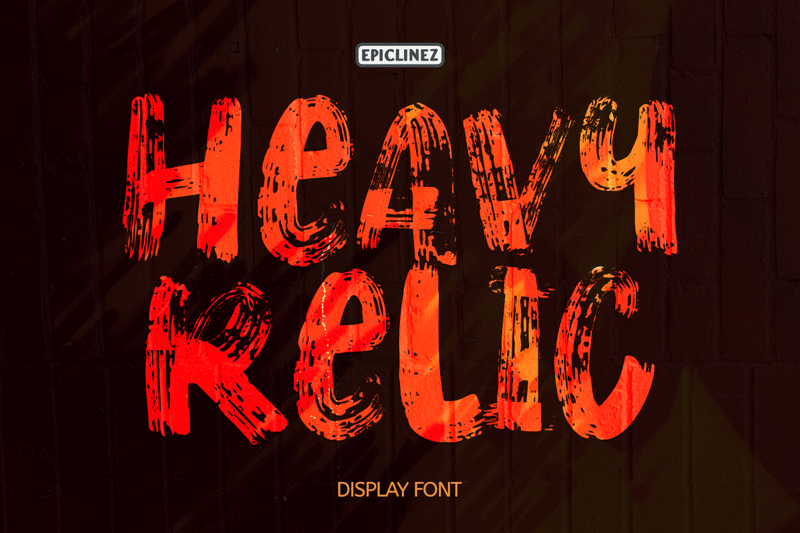
Font name: | Heavy Relic |
Author: | epiclinez |
Note by epiclinez | |
Heavy Relic is a heavy textured display font. It was inspired by the spirit of the most time tested, road-worn, and battle-hardened workhorse vintage Fender guitars in history. This font work greats for posters, movie titles, headlines, and apparel. NOTE : This demo font is 100% free for personal use. If you want to Donate, please click here : https://paypal.me/letterbaja I really appreciate your donations. If you want to use it commercially, please contact me : epiclineztype@gmail.com Or you can buy it here : https://fontbundles.net/epiclinez/511344-heavy-relic-display-font/rel=0keJ07 Thank you so much for your support. Aldy a.k.a Epiclinez Check out my other fonts : https://fontbundles.net/epiclinez/rel=0keJ07 |